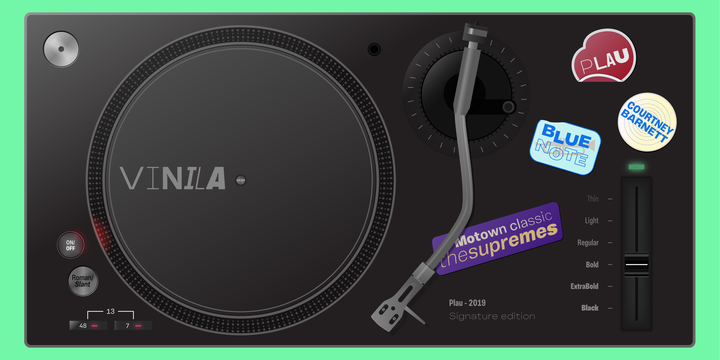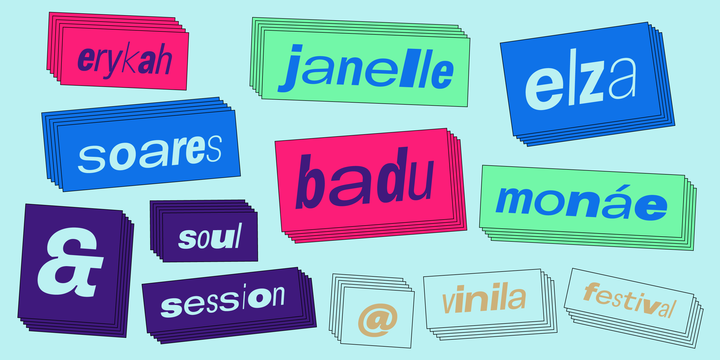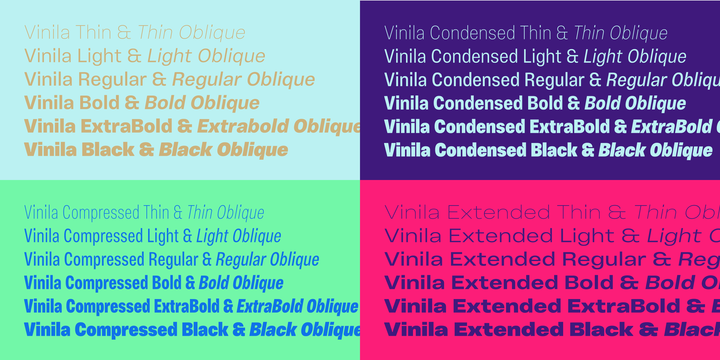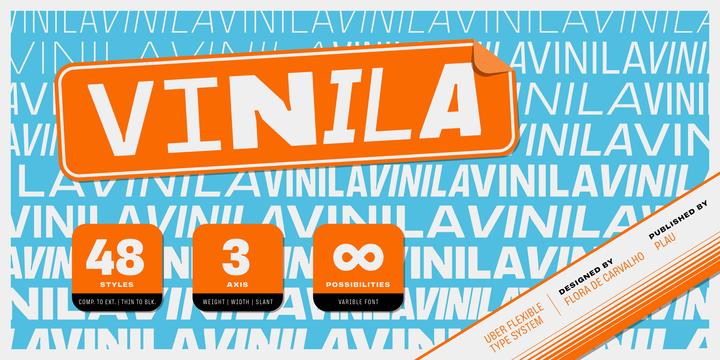
Vinila Font Family
Grotesques can answer a really wide variety of design problems and go from small sizes to large without missing a beat.
Vinila is Flora de Carvalho’s take on the genre. The family’s multi-purpose intention comes from having 4 widths – from compressed to extended, each with 6 weights and obliques.
Rhythm and music played an important part in the design of this font, which started off as the lettering for a Brazilian Music album